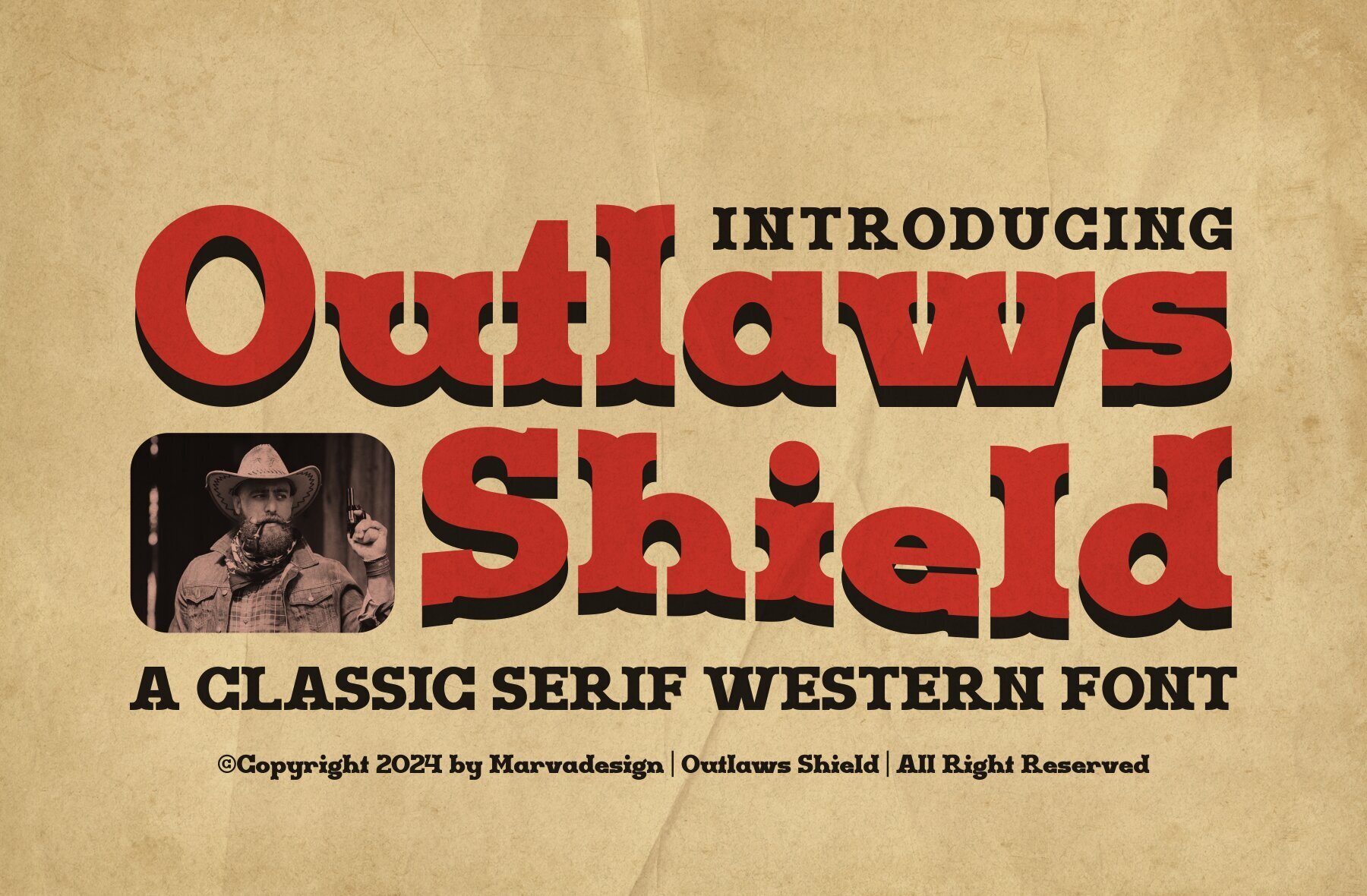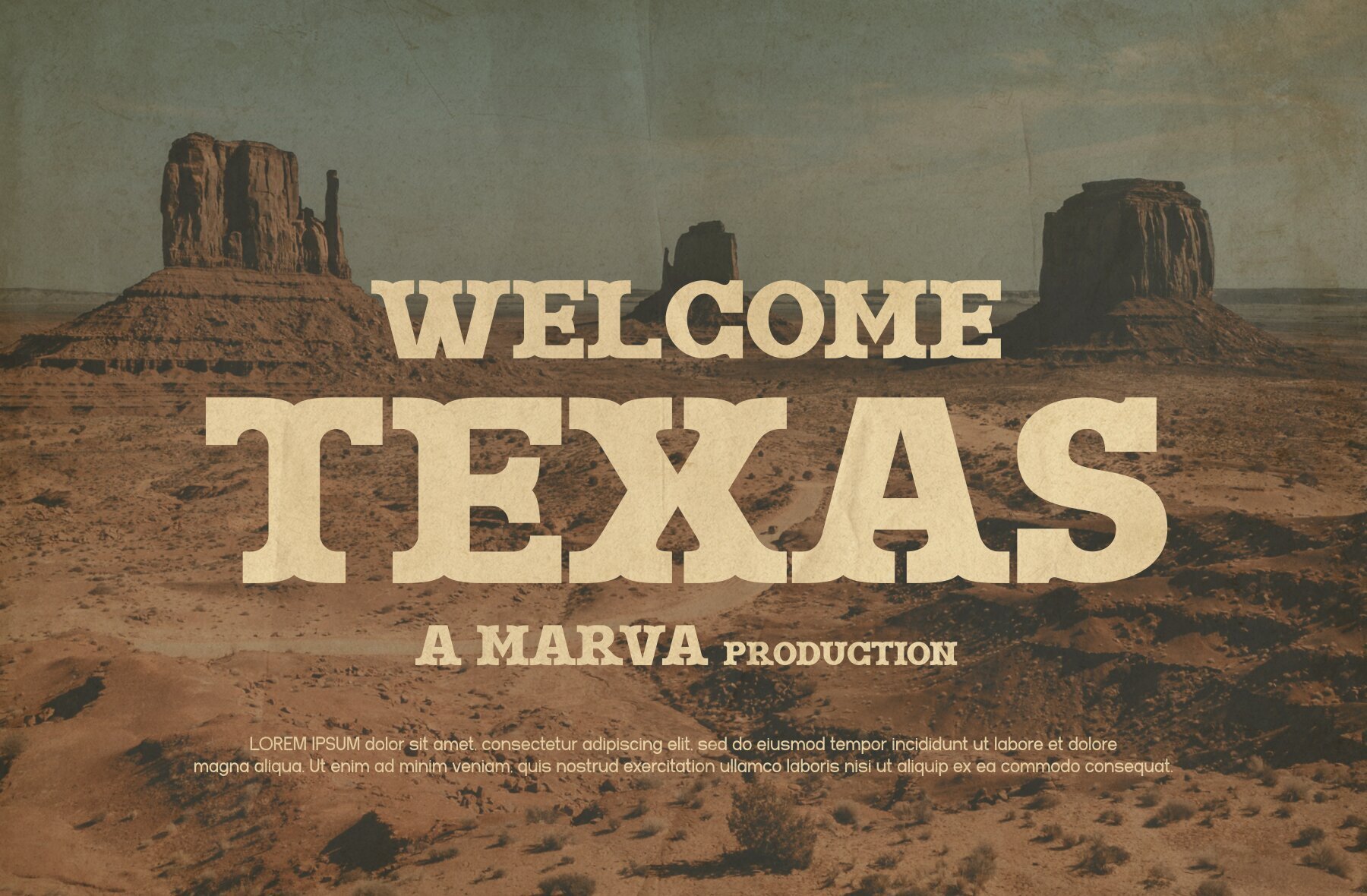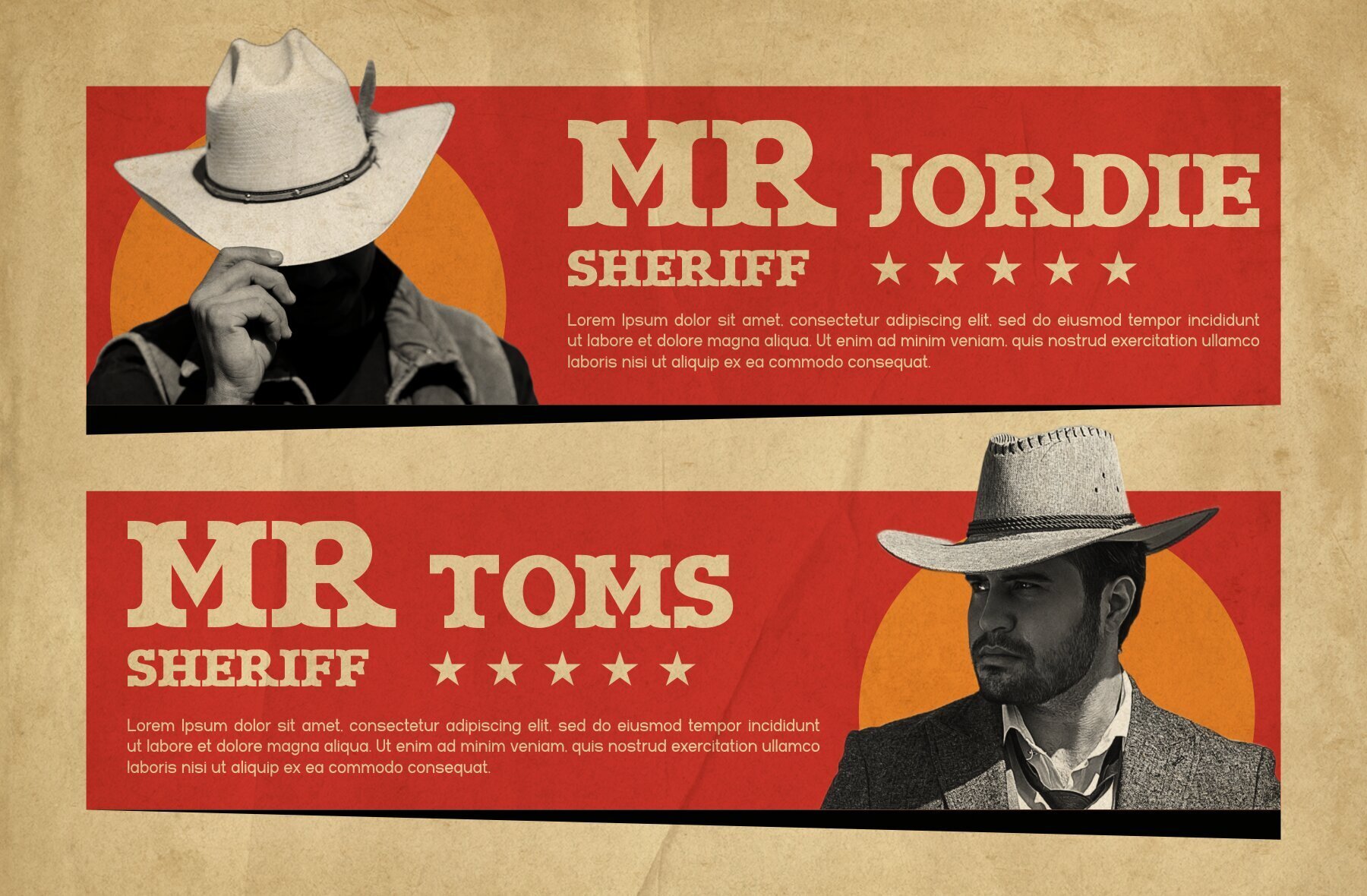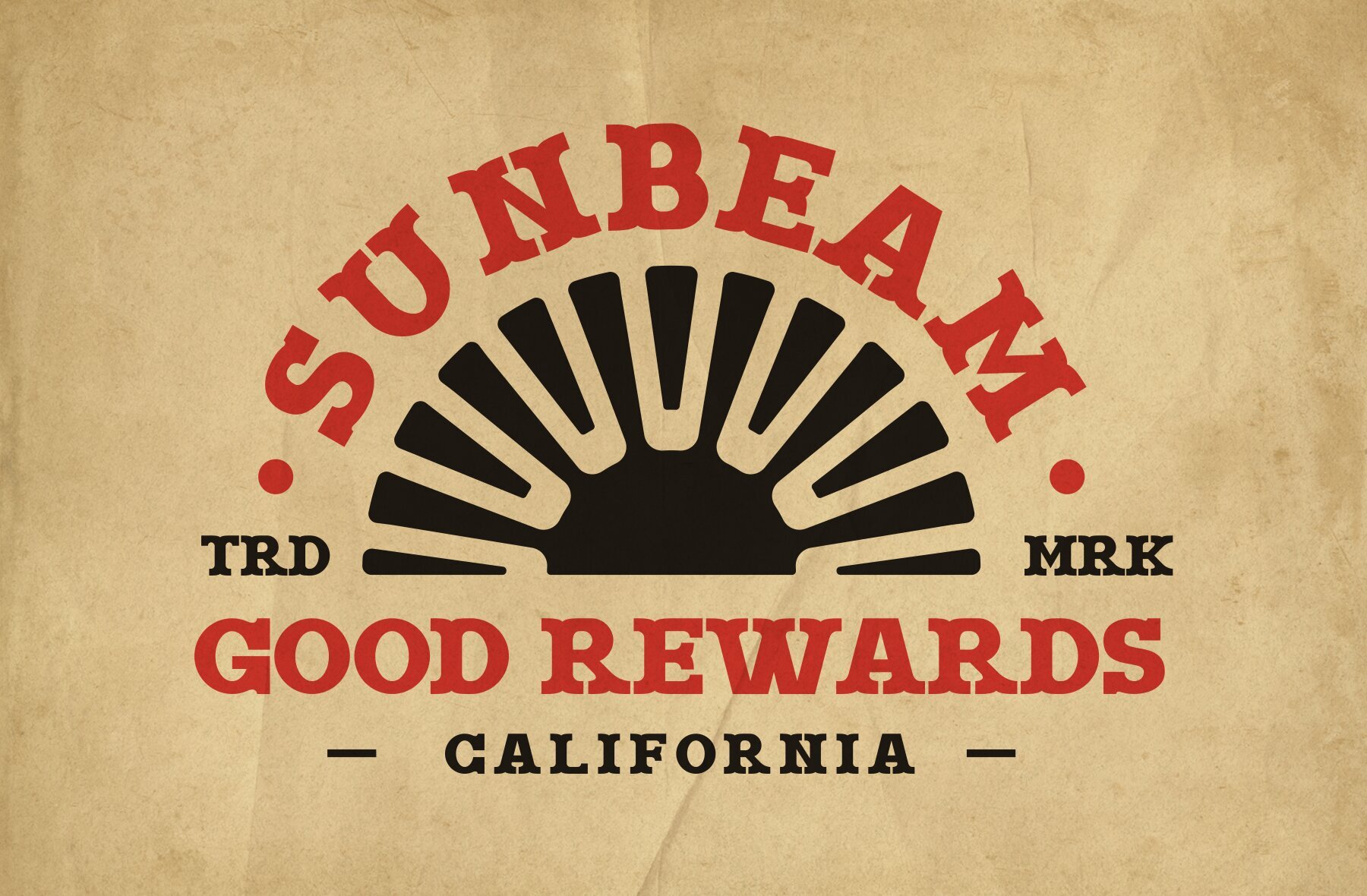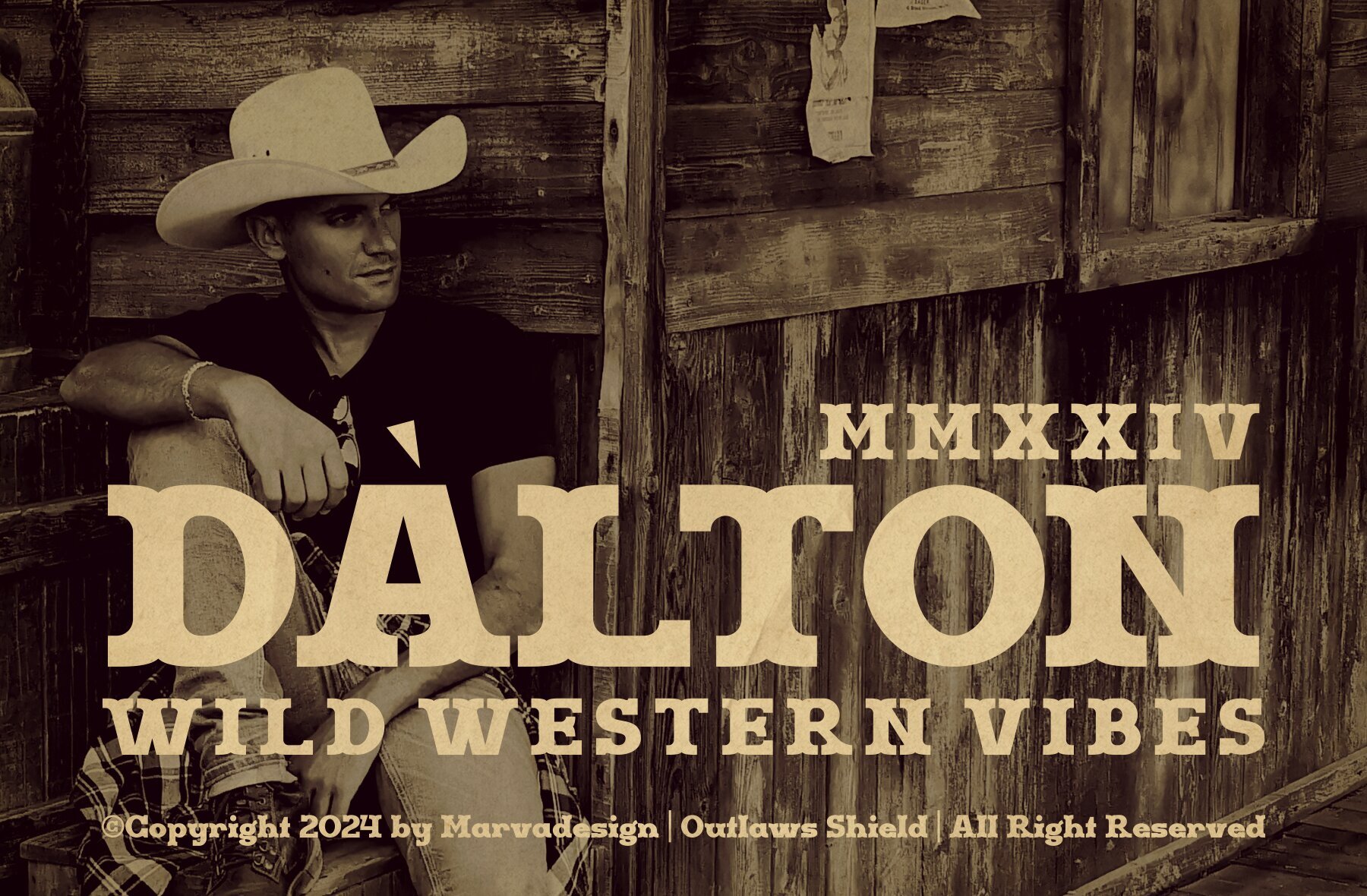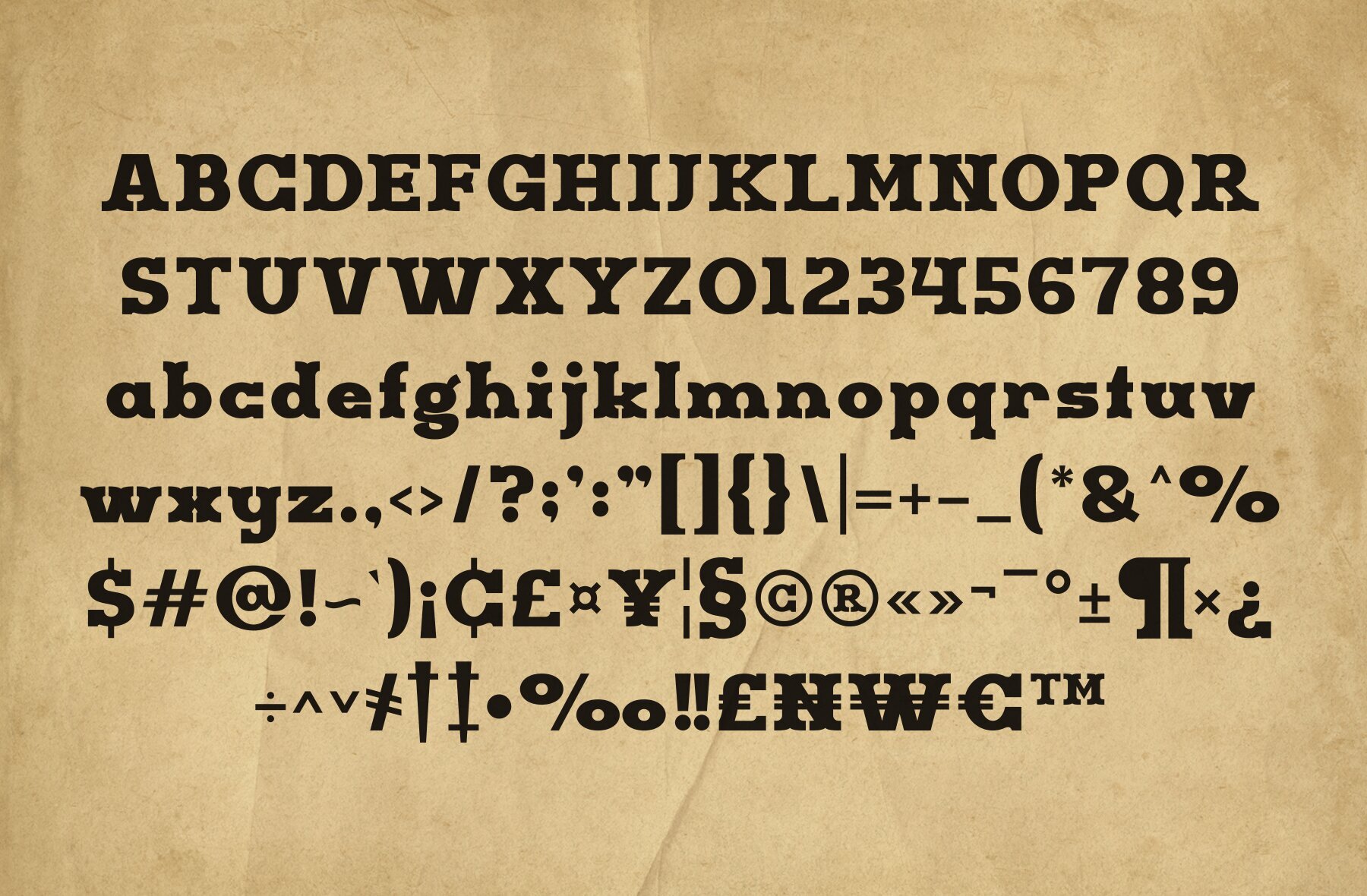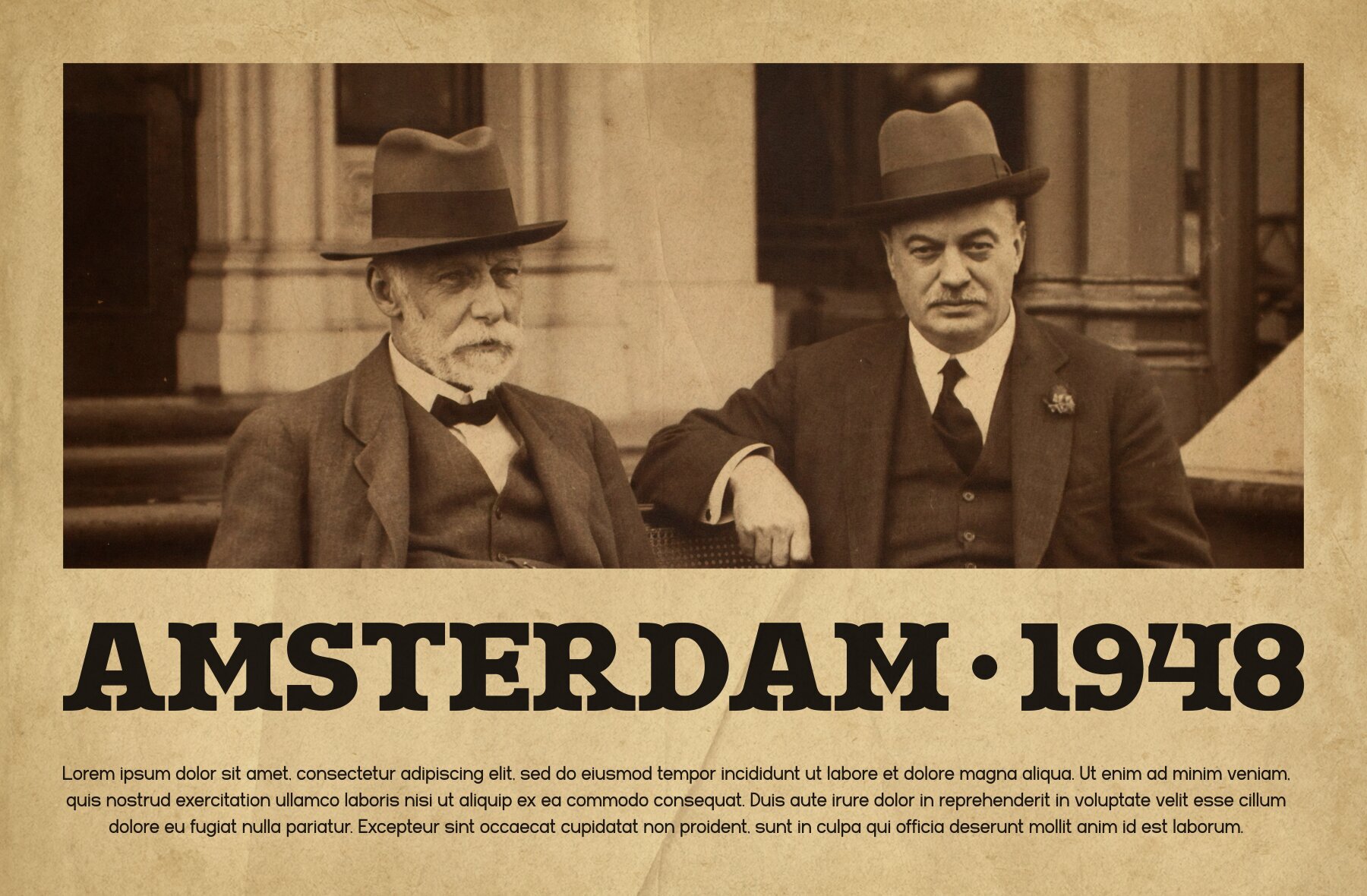
Outlaws Shield Font
Outlaws Shield
Outlaws Shield is a Western serif font that encapsulates the rugged spirit of the Old West. Its bold, slab-serif letterforms, coupled with subtle serifs reminiscent of cowboy boot spurs, evoke the essence of the untamed frontier. Every character in Outlaws Shield is crafted with precision, embodying the strength and resilience of the cowboy lifestyle. The sturdy yet slightly weathered appearance of the letters adds a rustic charm, as if they were hand-carved on a wooden sign outside a saloon in a dusty town.Outlaws Shield: Western Serif with Frontier Spirit